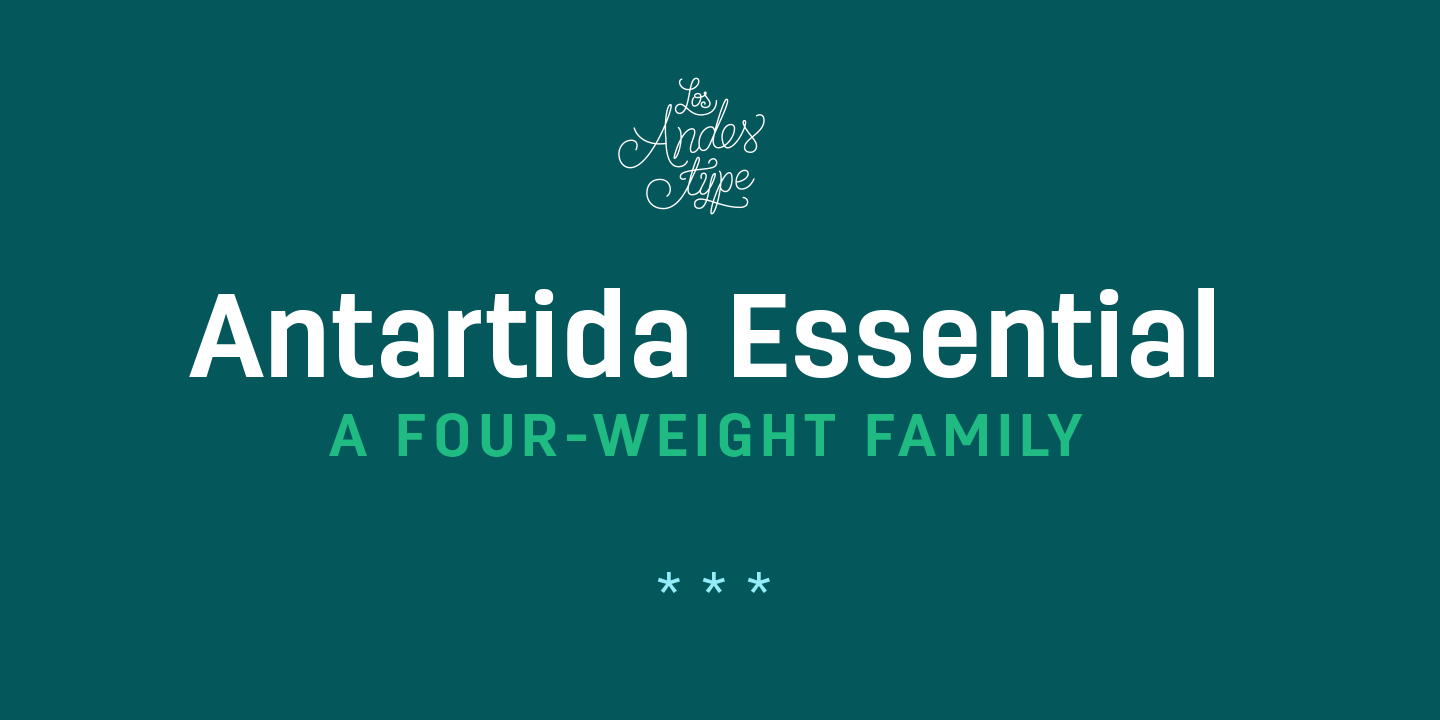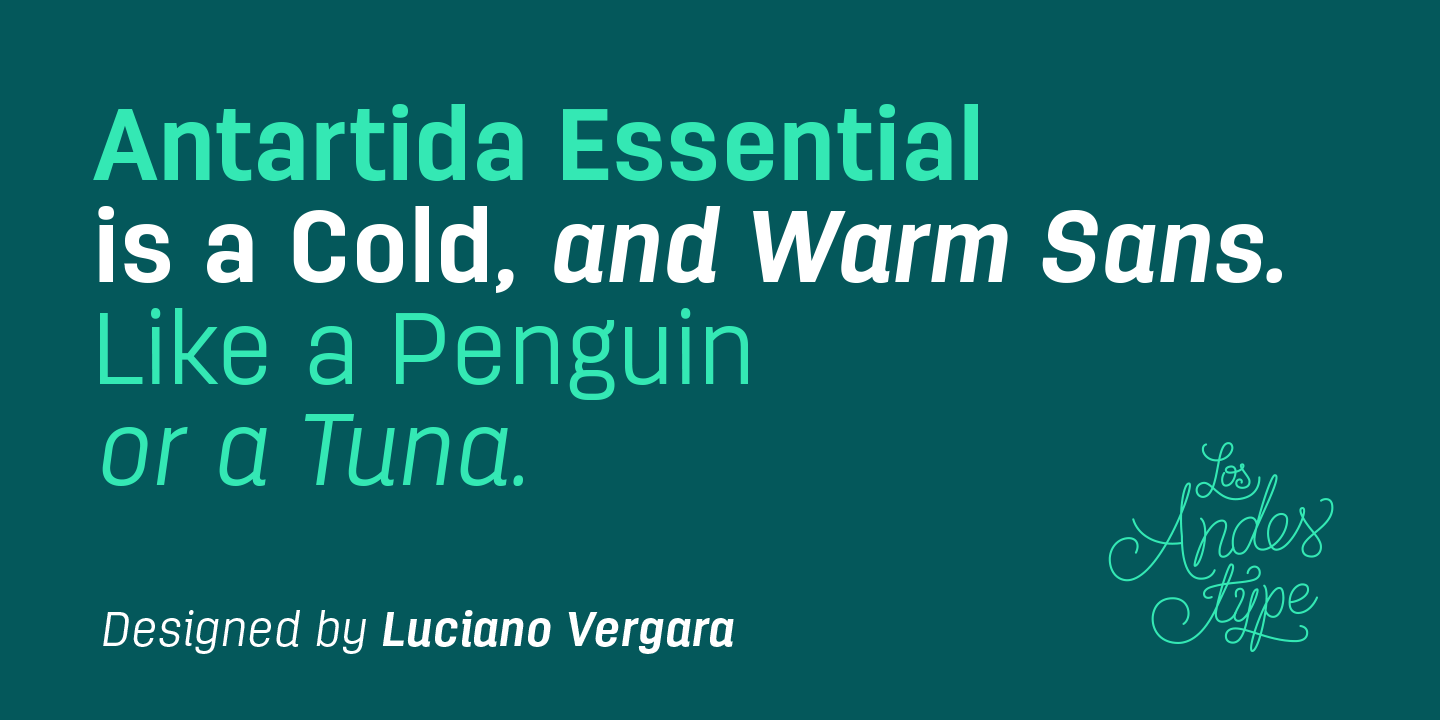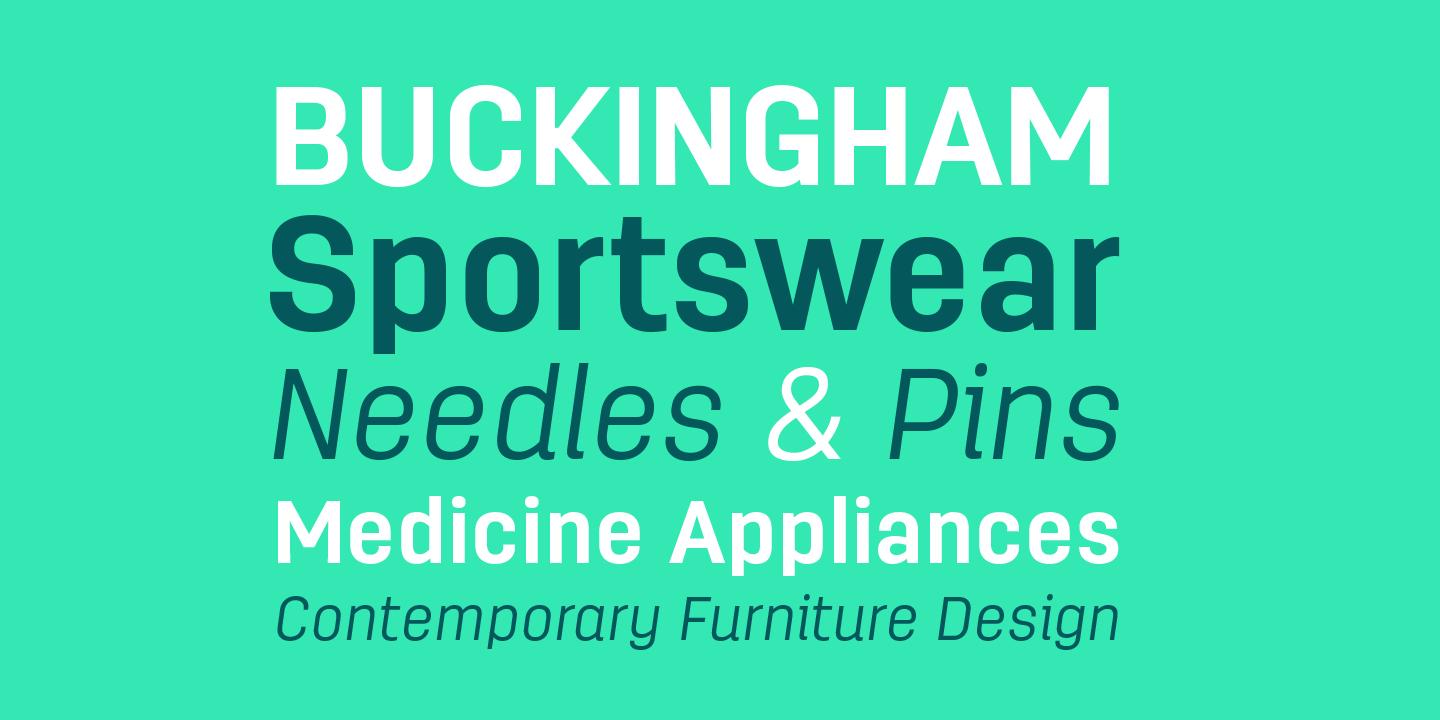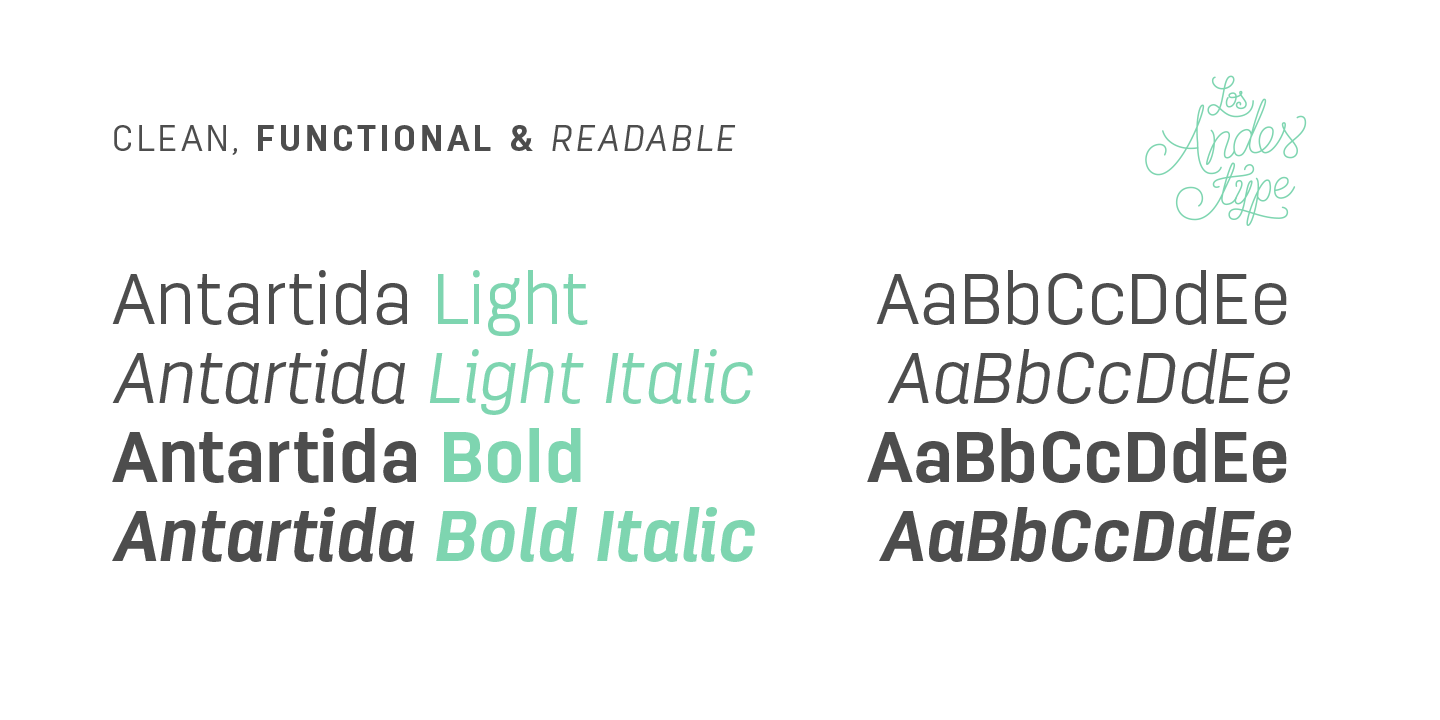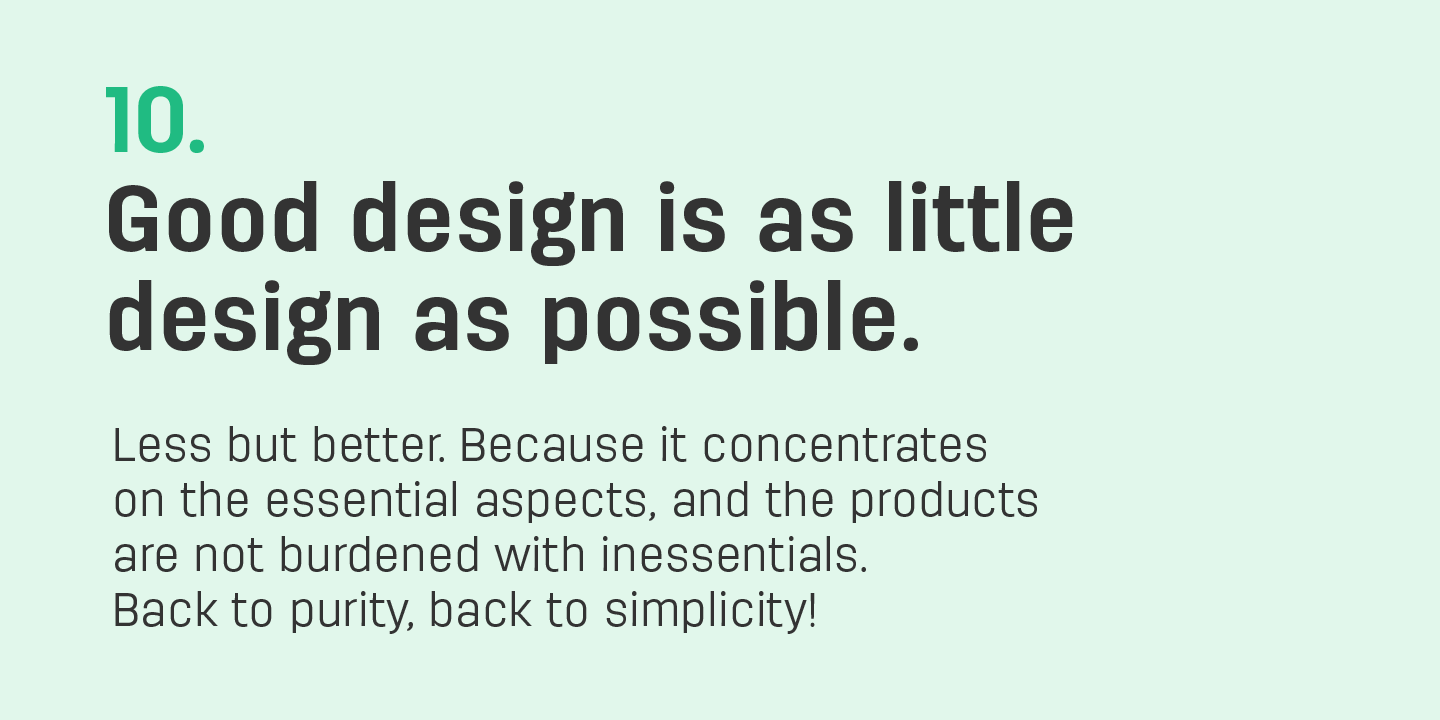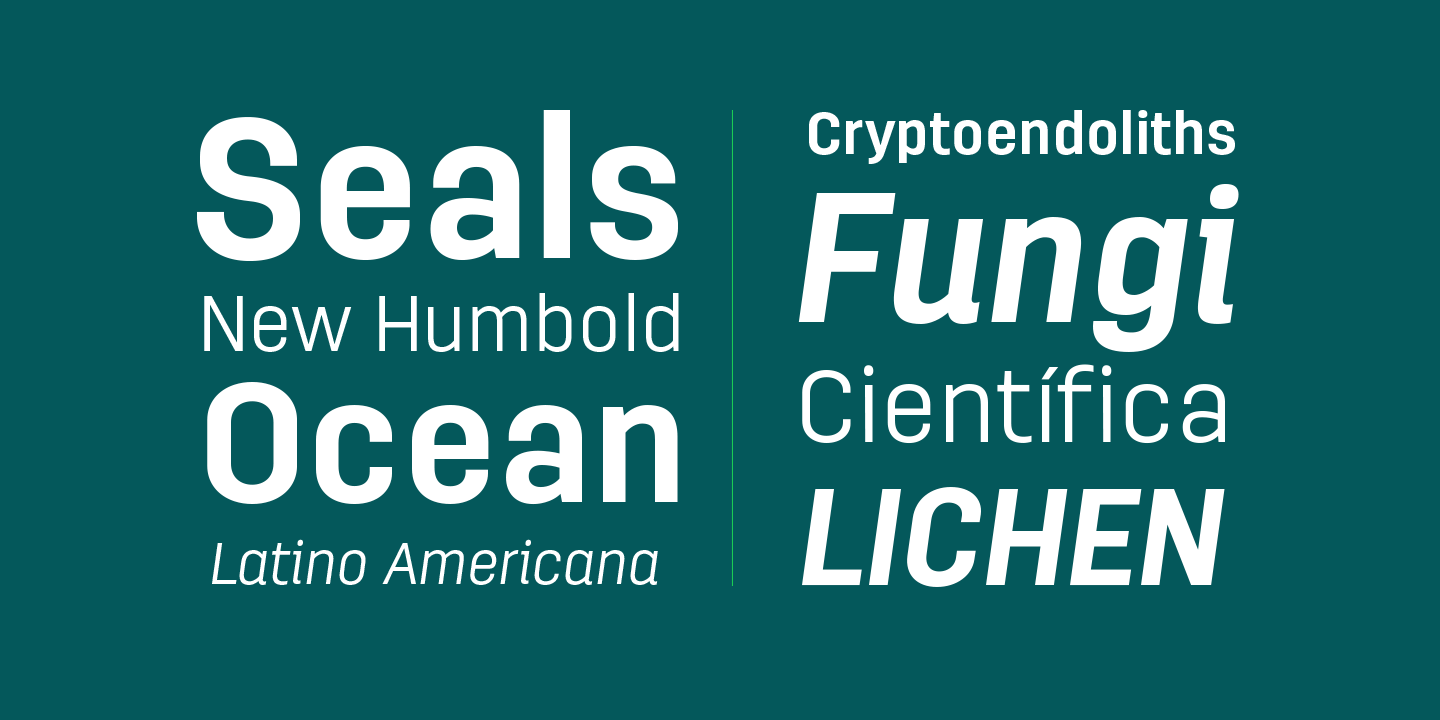
Antartida Essential is a minimal sans serif typeface. While its simple mono-linear structure gives it a kind of neutral feeling, it is functional and clean. It is a essential family of 4 fonts, 2 weights and italics.